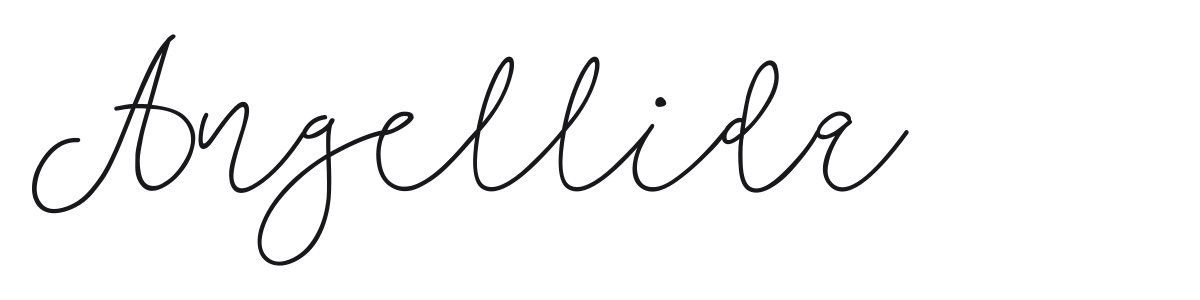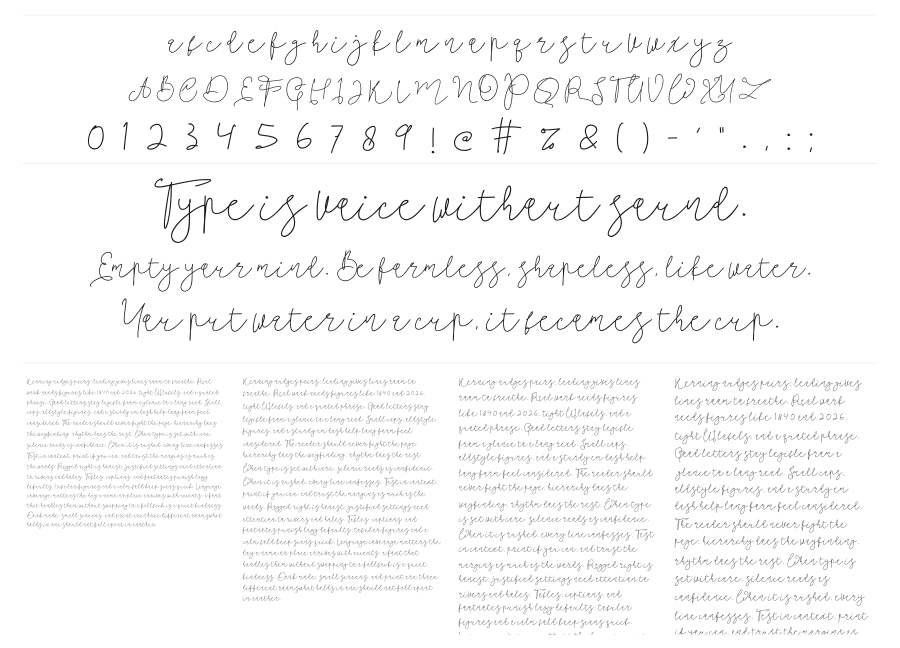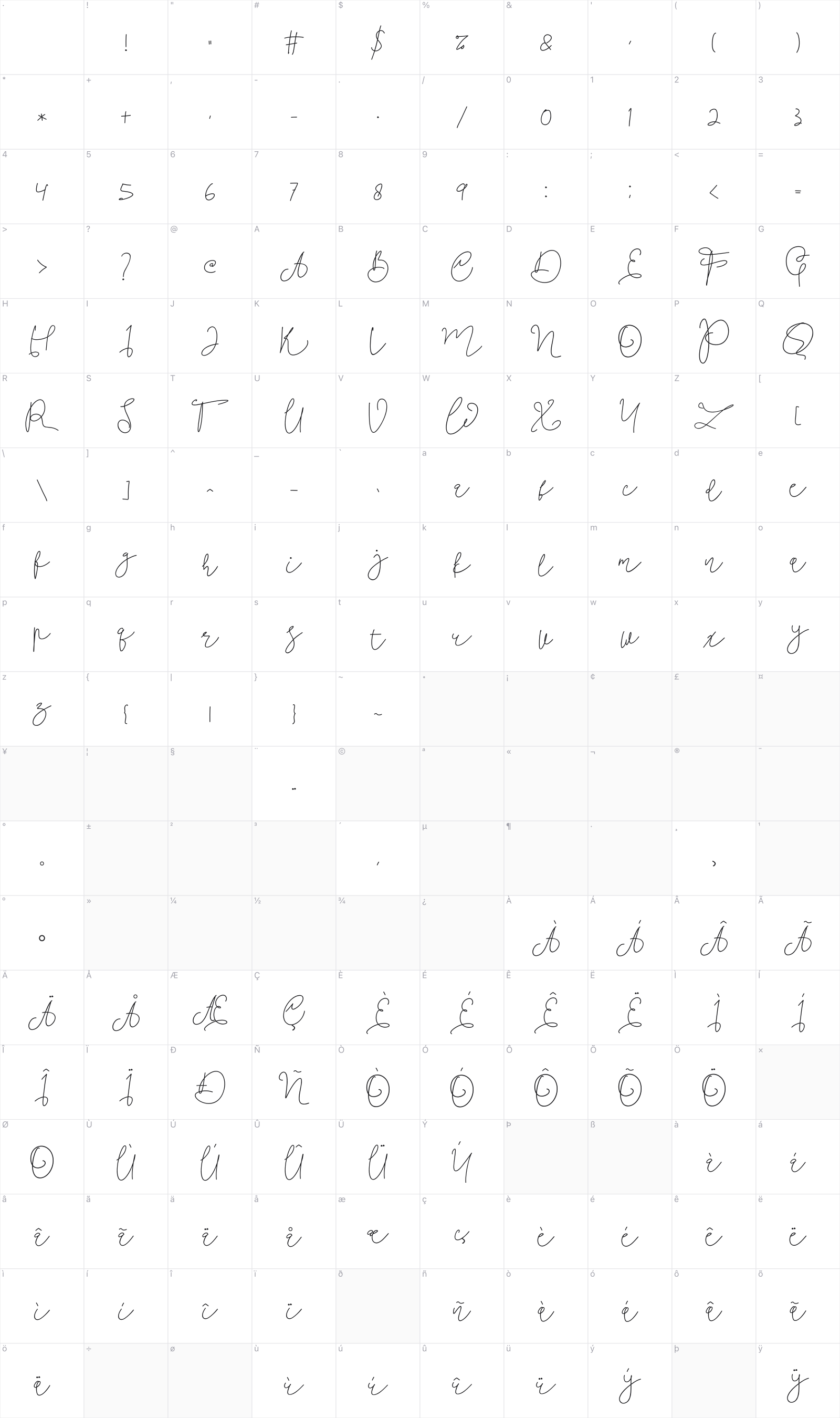
Angellida
Angellida is a flowing connected script with exceptionally thin strokes and long looping ascenders and descenders that give each line of text a ribbon-like quality. The consistent weight and graceful connections create a balance between natural handwriting and controlled elegance. It suits wedding stationery, branding, and any context that calls for soft, romantic lettering.